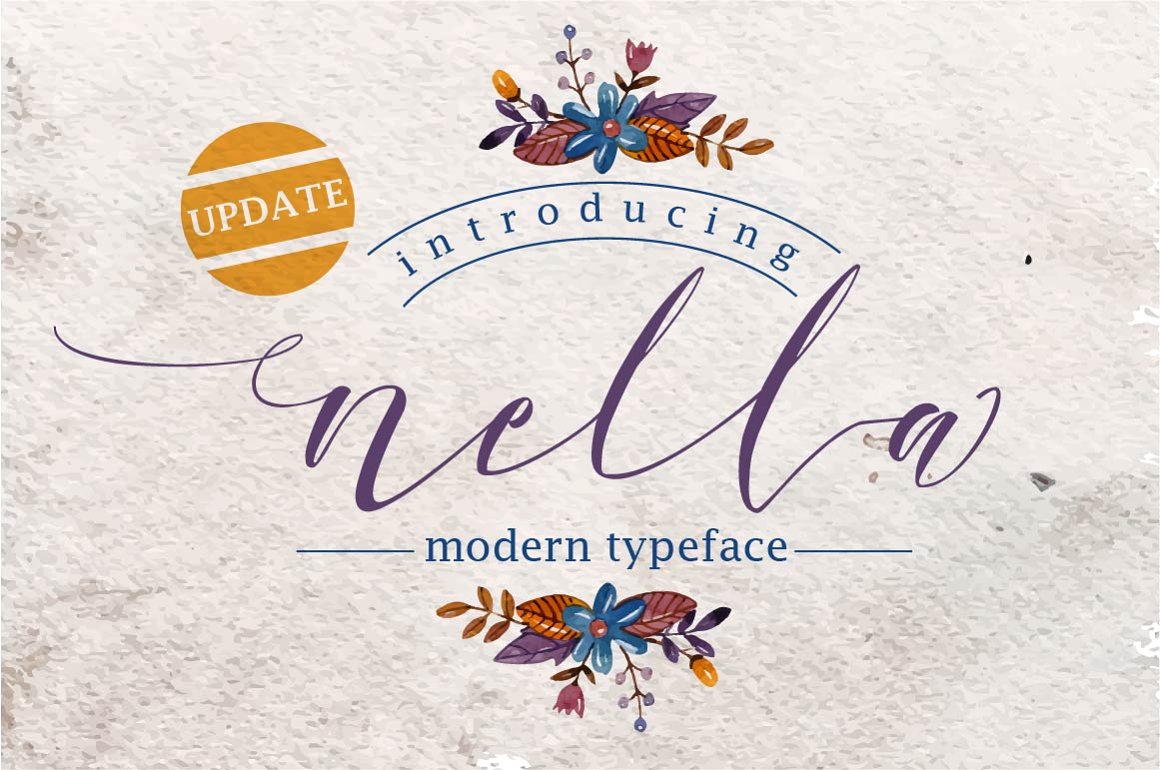
Nella Script
Nella Script Font
Nella script is another lovely modern calligraphy typefaces and elegant touch. Can be used for various purposes.such as headings, signature, logos, wedding invitation, t-shirt, letterhead, signage, lable, news, posters, badges etc. Nella Script come complete with 418 glyphs.